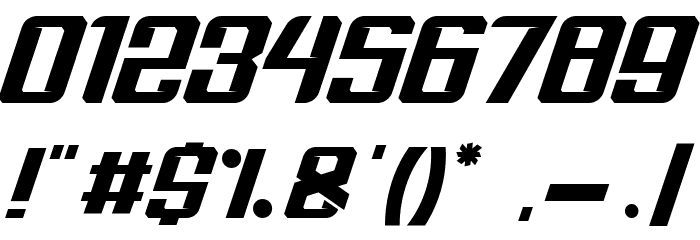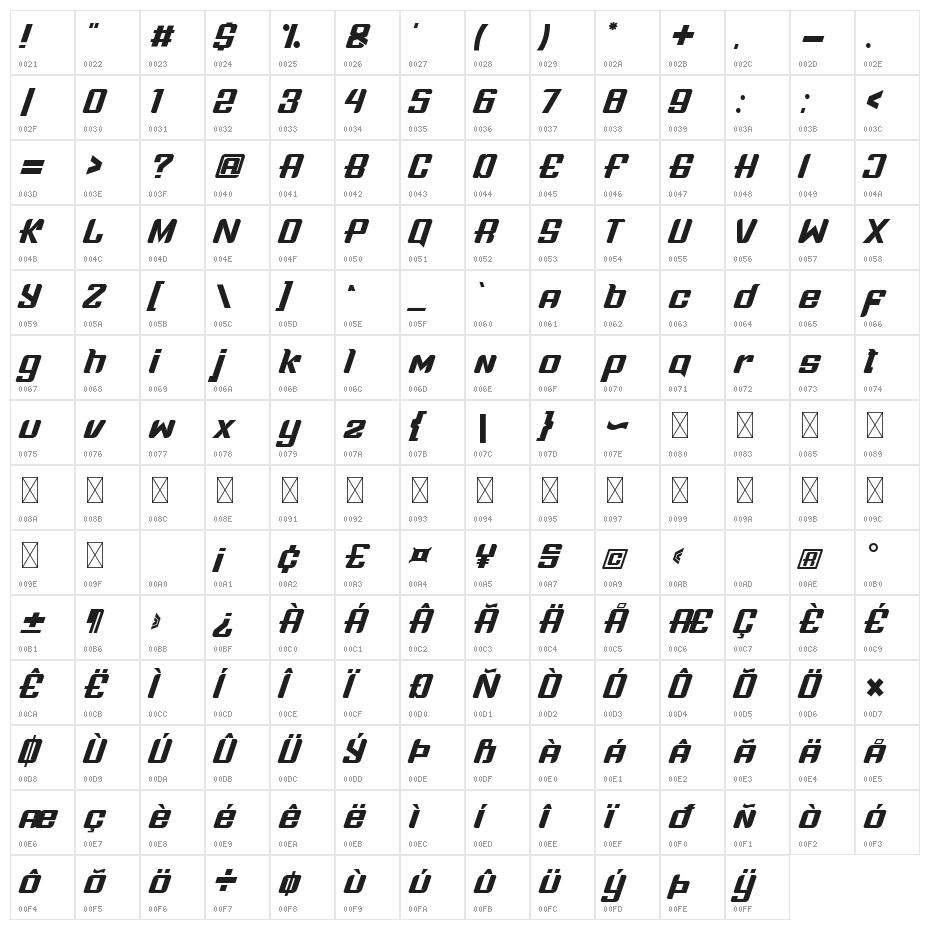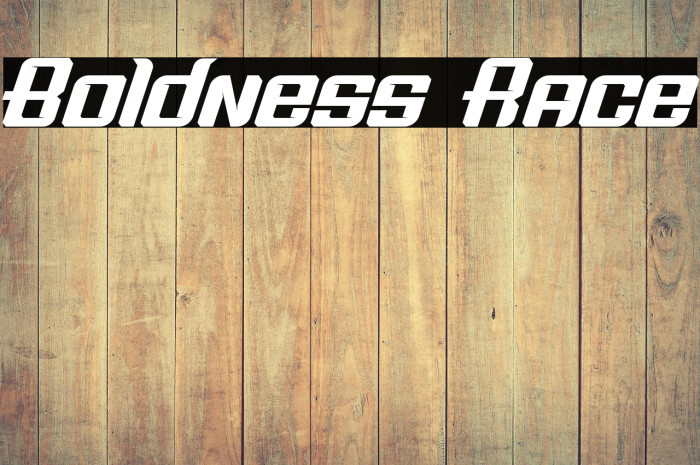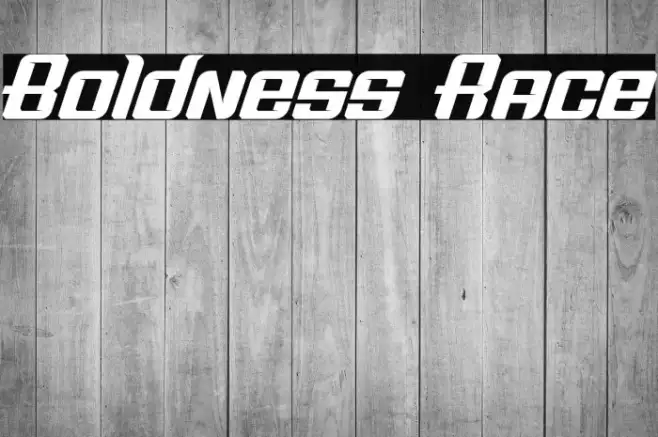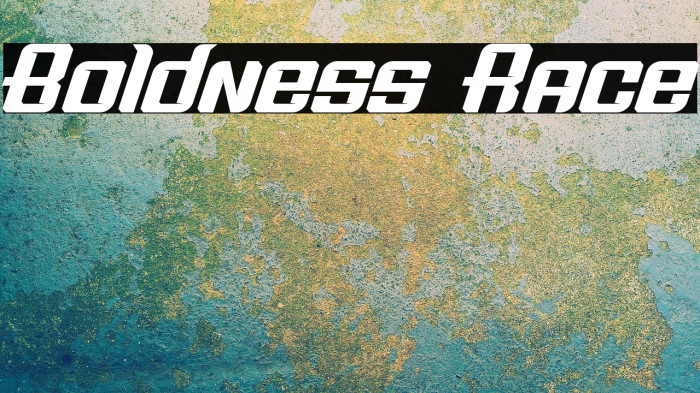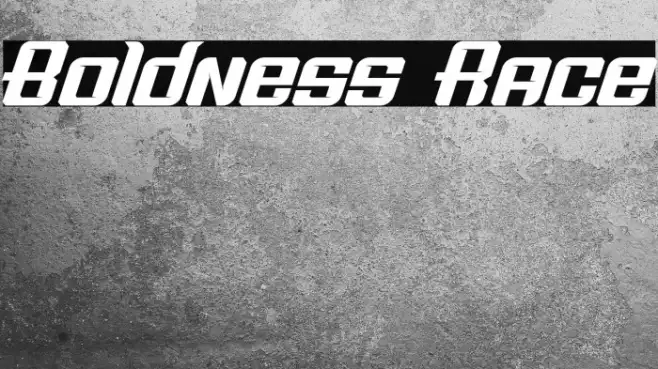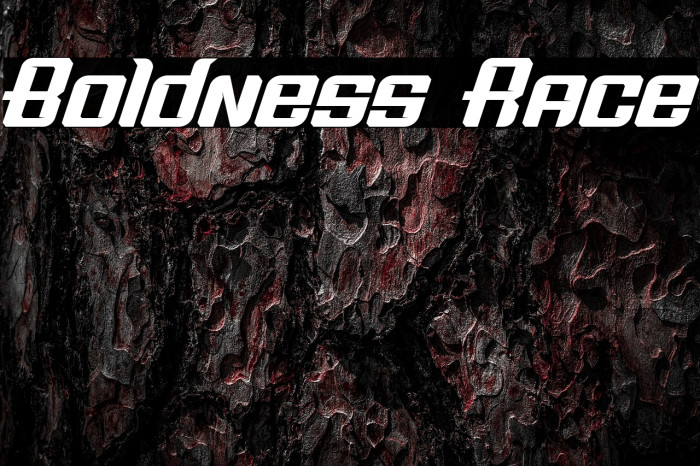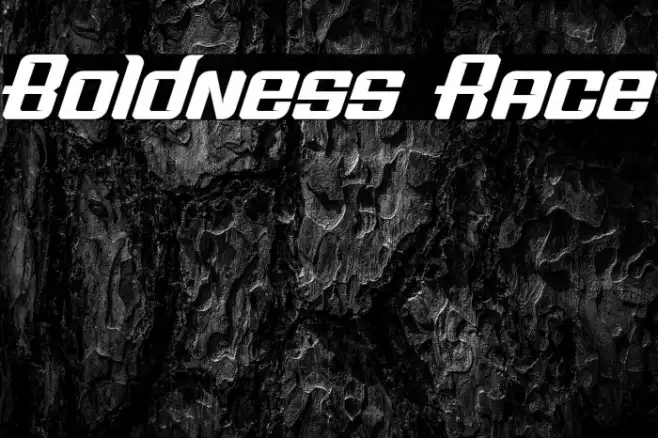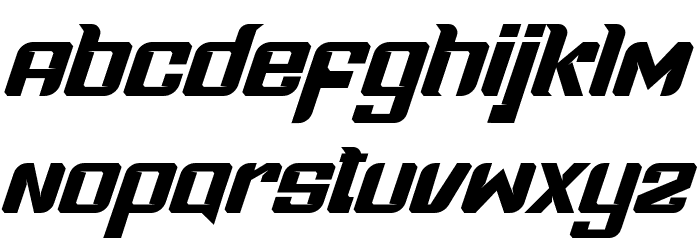
Boldness Race Font
Boldness Race Description
This font exudes a bold and dynamic presence, characterized by its strong, angular lines and italicized slant. The uppercase letters are particularly striking, with a futuristic and sporty aesthetic that suggests speed and movement. The lowercase letters maintain this theme, offering a cohesive look that is both modern and assertive. Numbers and special characters are designed with the same boldness, ensuring consistency across all text elements. The overall design is reminiscent of racing or automotive themes, making it ideal for projects that require a sense of urgency or high energy.
| Proposed Projects | Ideal for automotive branding, sports team logos, dynamic posters, and high-energy advertisements. |